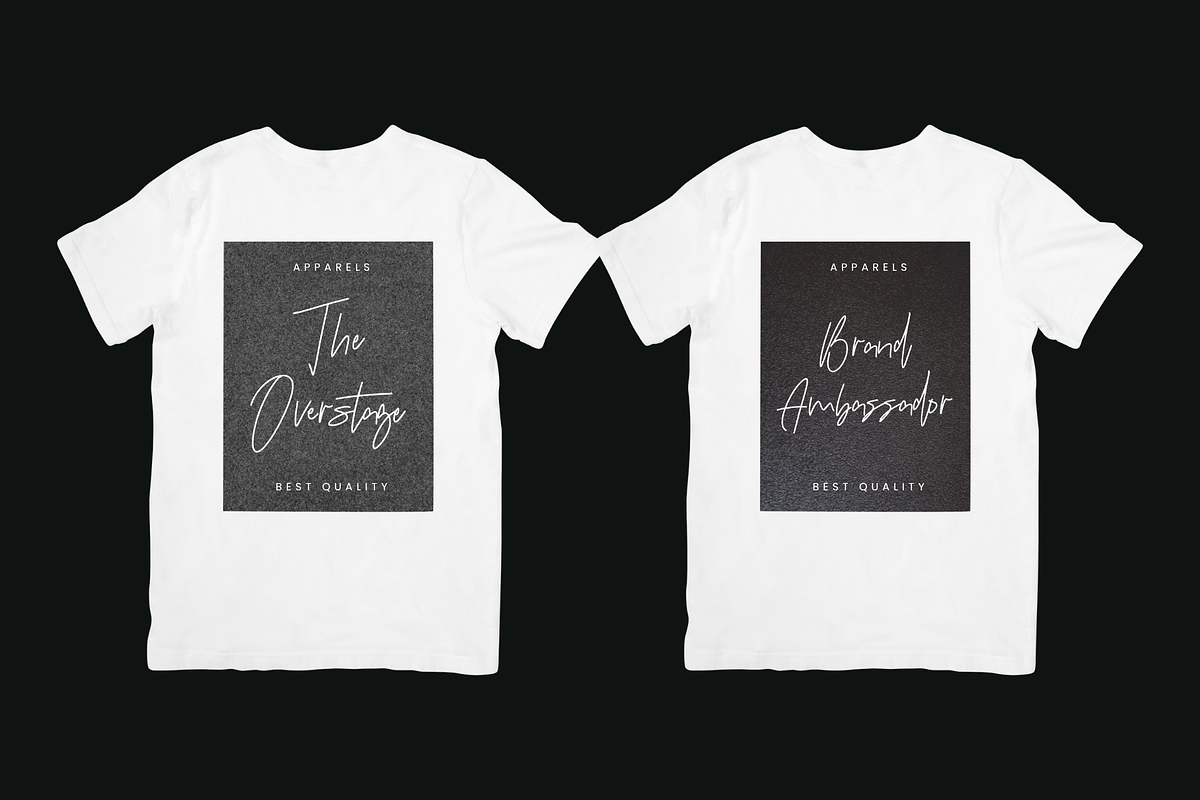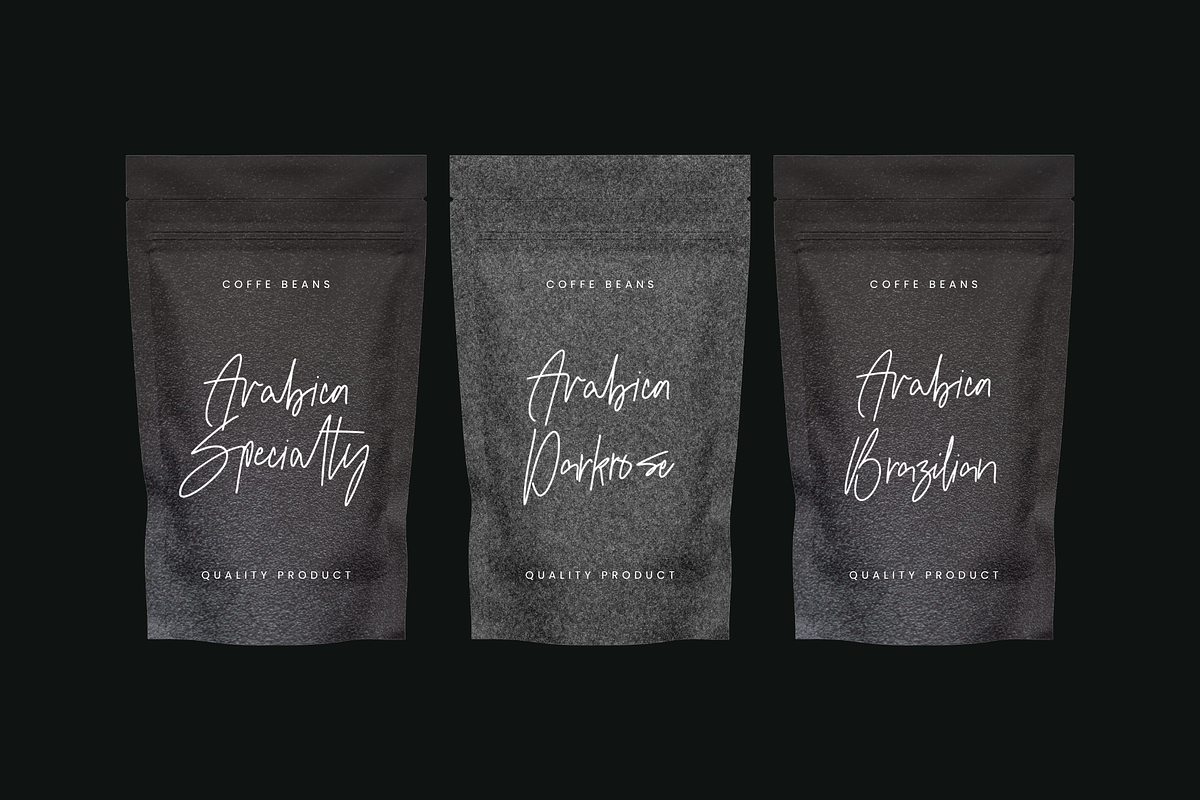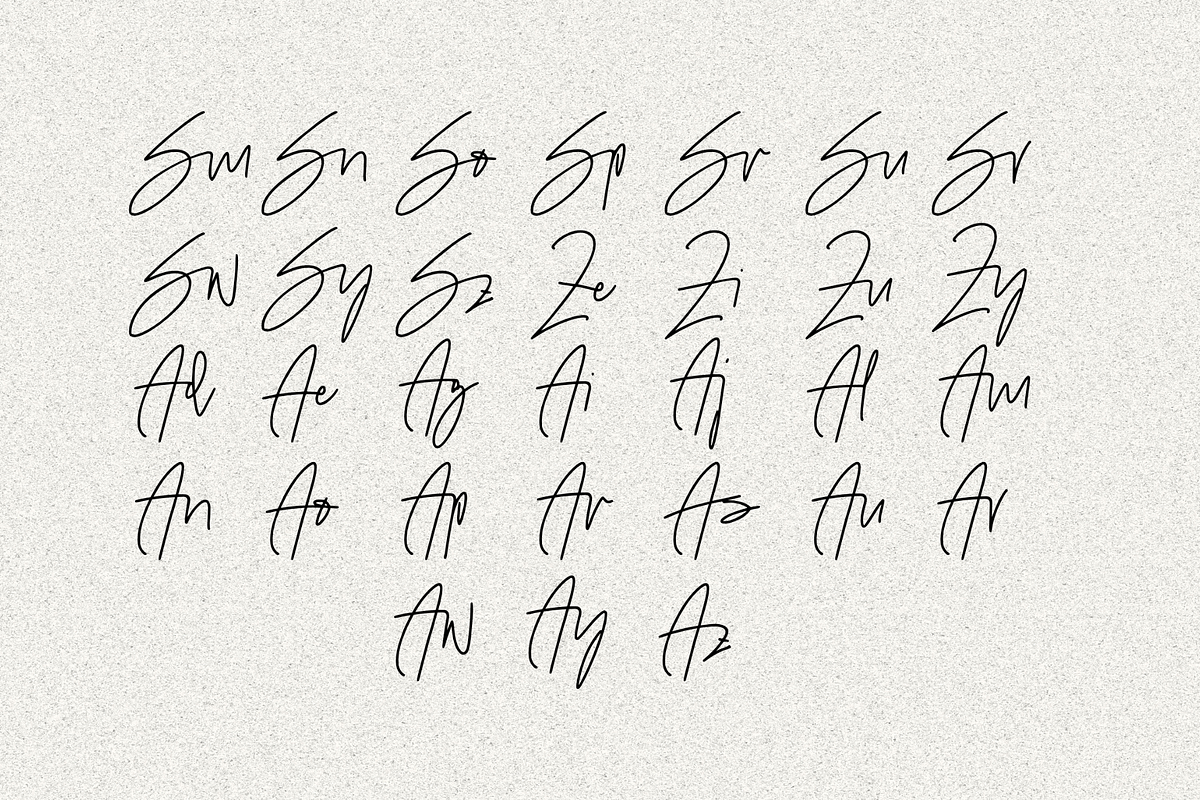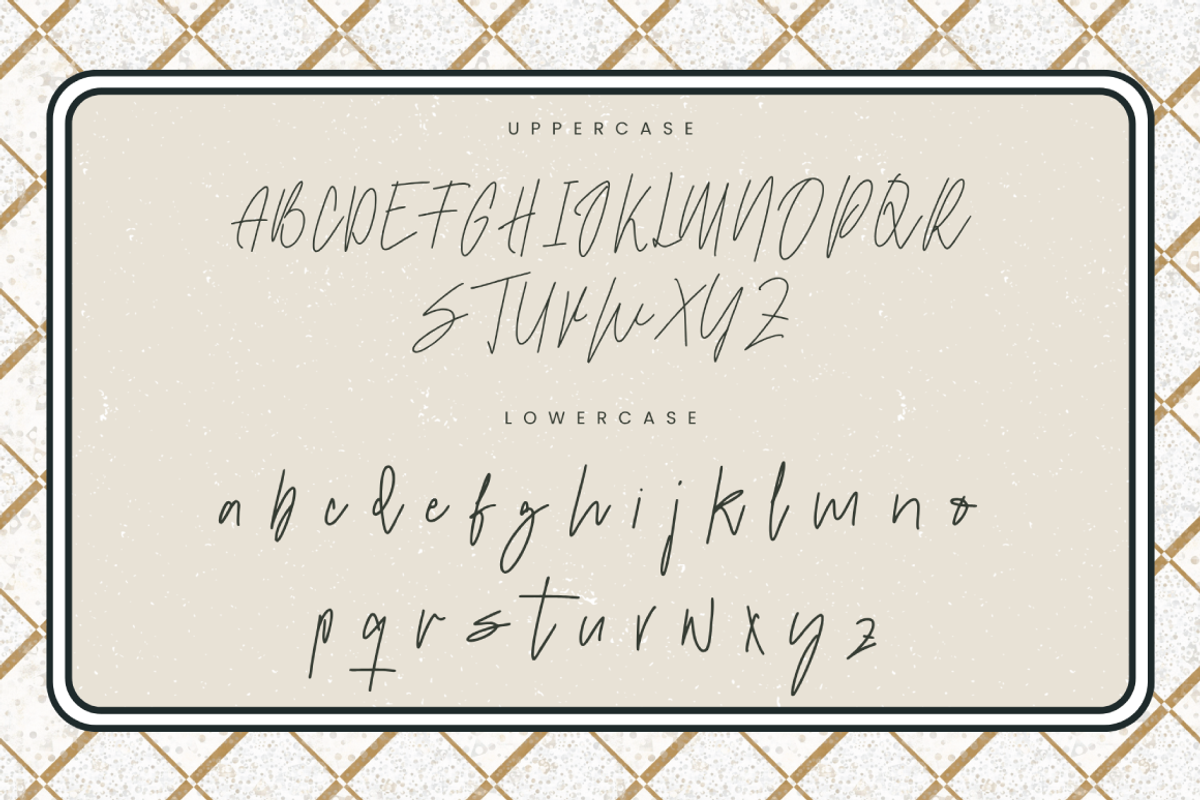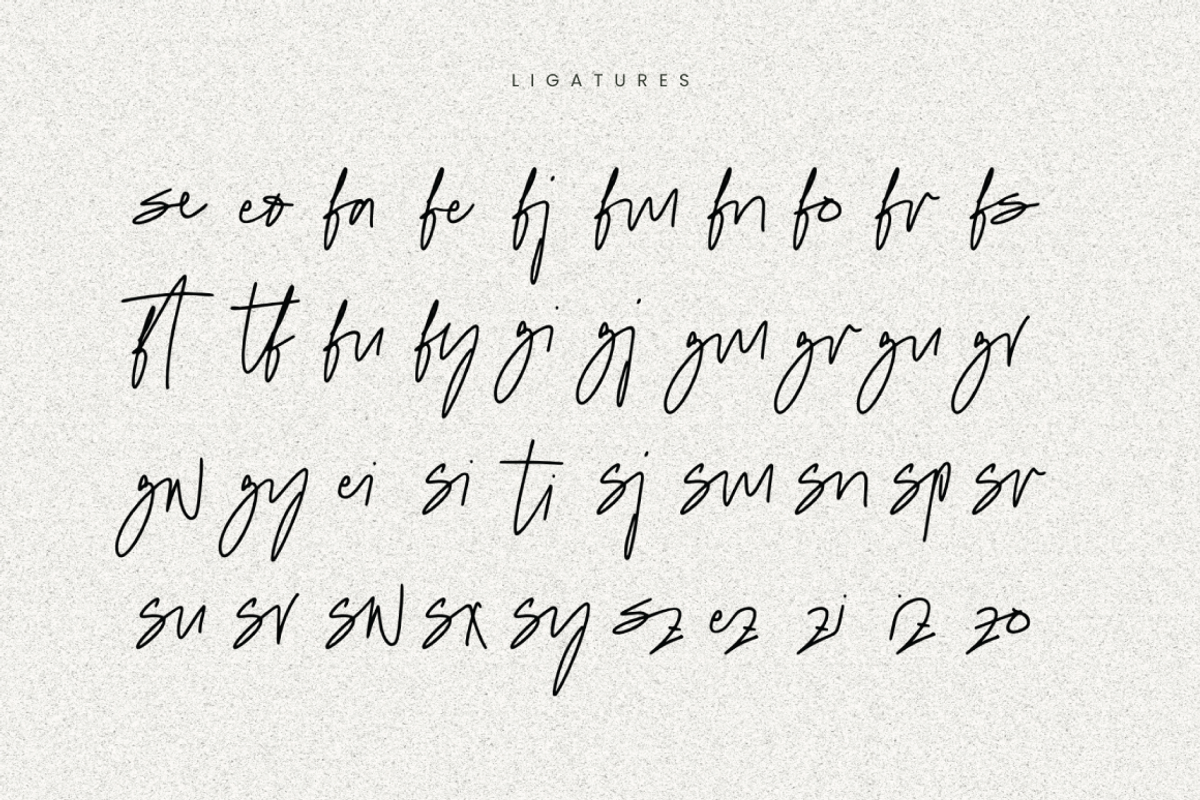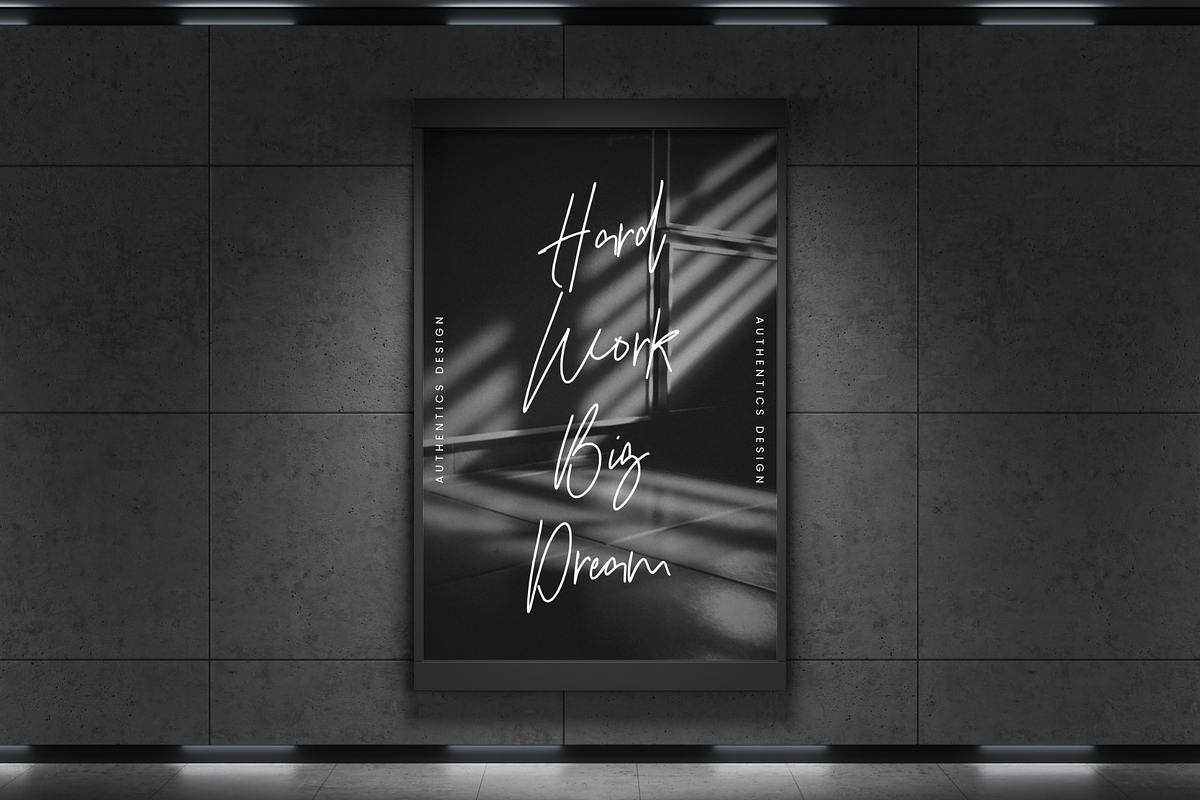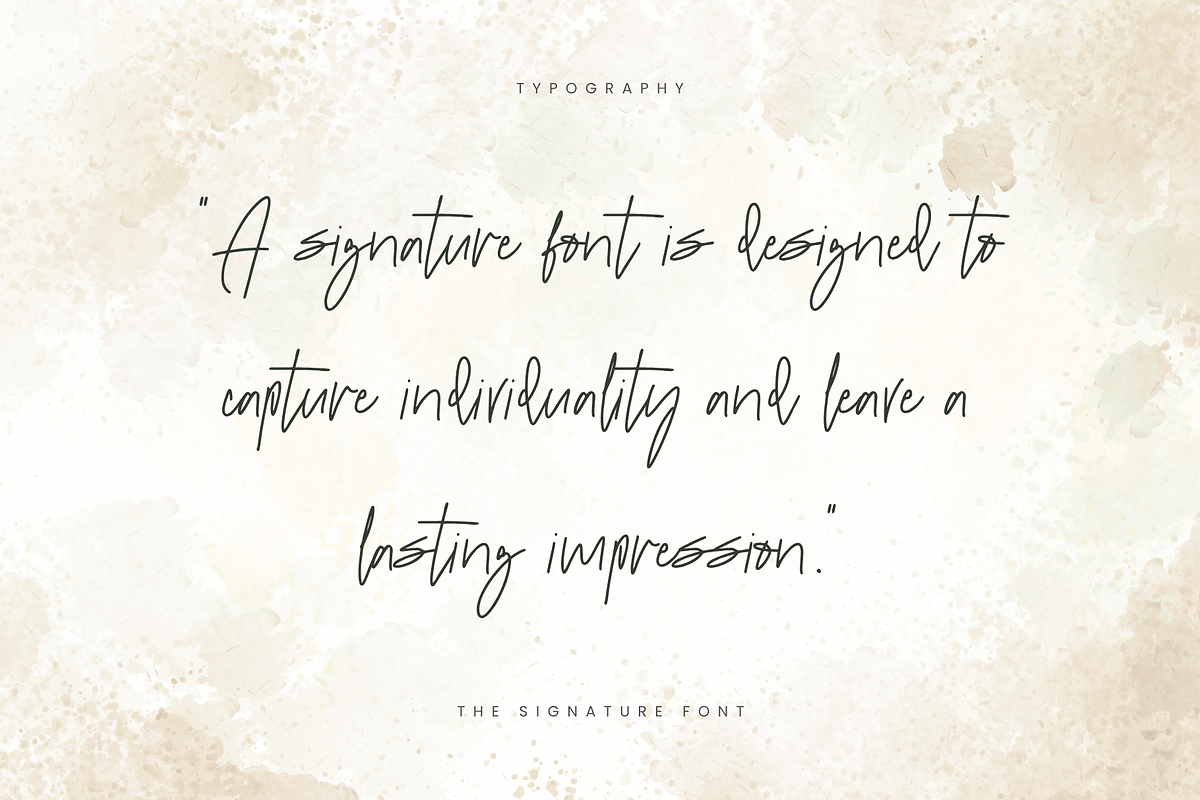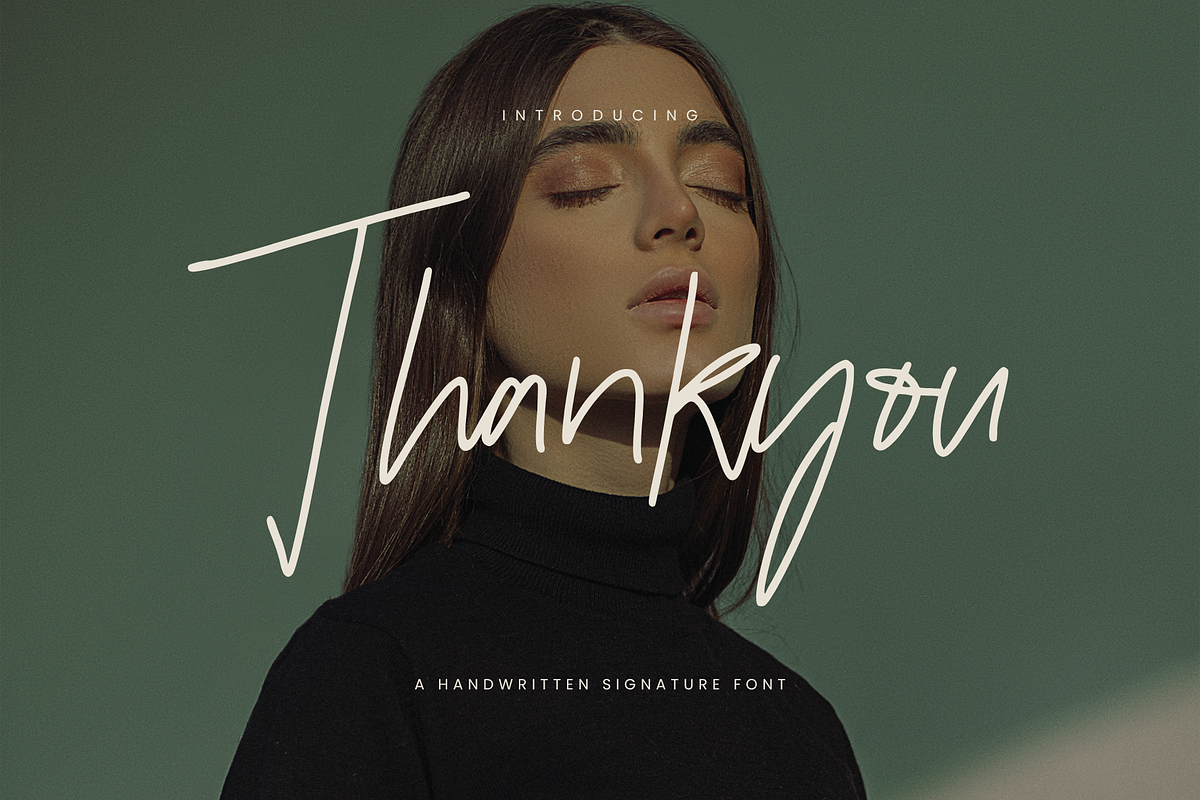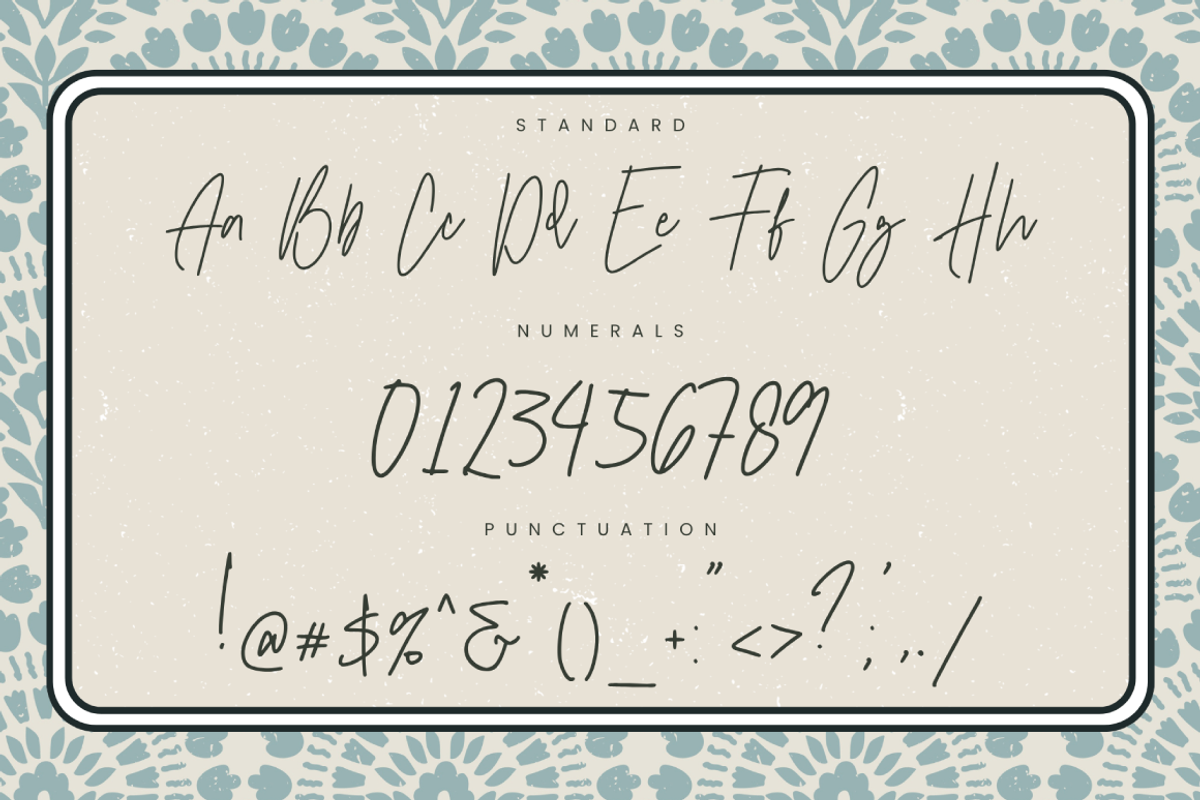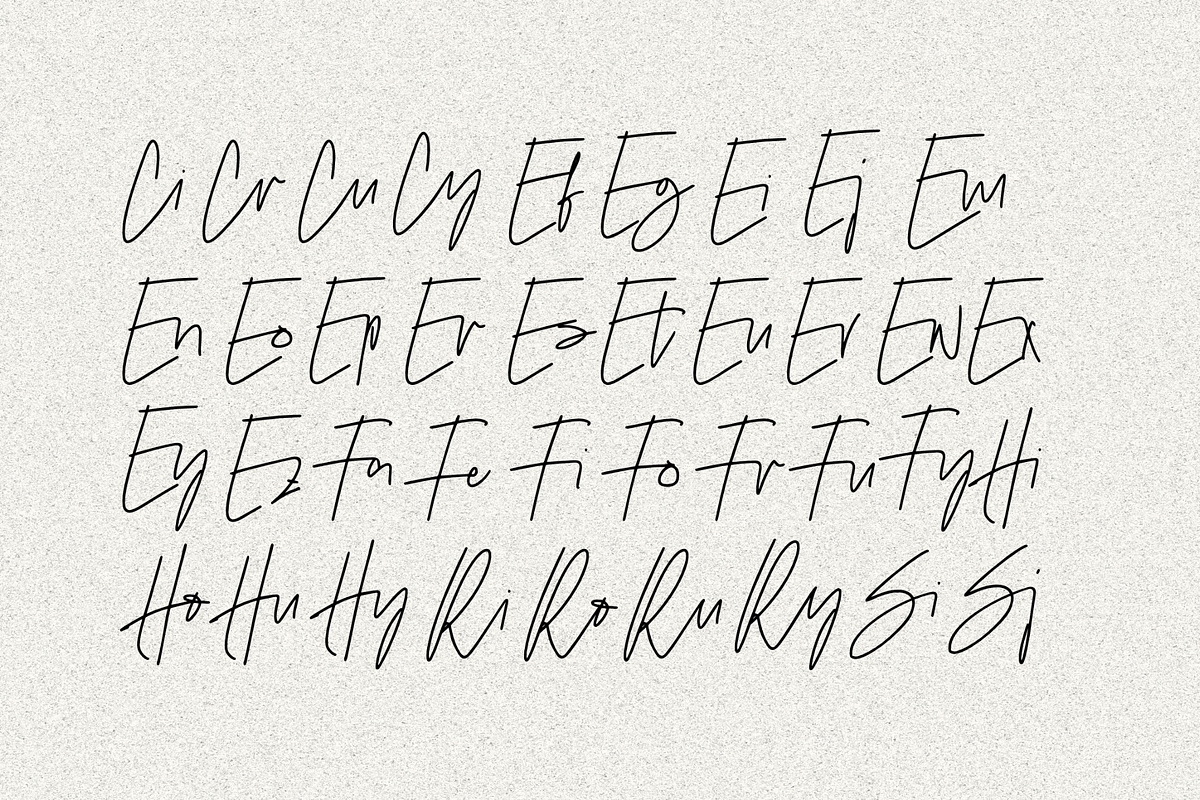
Figetress - Natural Signature
A Handwritten Signature Font
Figetress Signature is a handwritten signature font designed to bring an elegant, personal, and authentic touch to every design. With its smooth strokes, natural letter flow, and artistic details, this font lends a premium feel to a variety of creative projects.
Figetress Signature Features :
Uppercase & Lowercase International Languange & Symbols Support Punctuation & Number PUA Unicode Range Standard Ligatures Discretionary Ligatures Stylistic Alternates Stylistic Set.
Suitable for:
Logos & Personal Branding
Fashion & Beauty Branding
Wedding Invitations
Social Media Content
Photography Watermarks
Quotes & Editorial Design
Product Labels & Luxury Branding
Figetress Signature was created for designers, business owners, and creators who want to create a classy and memorable visual identity.